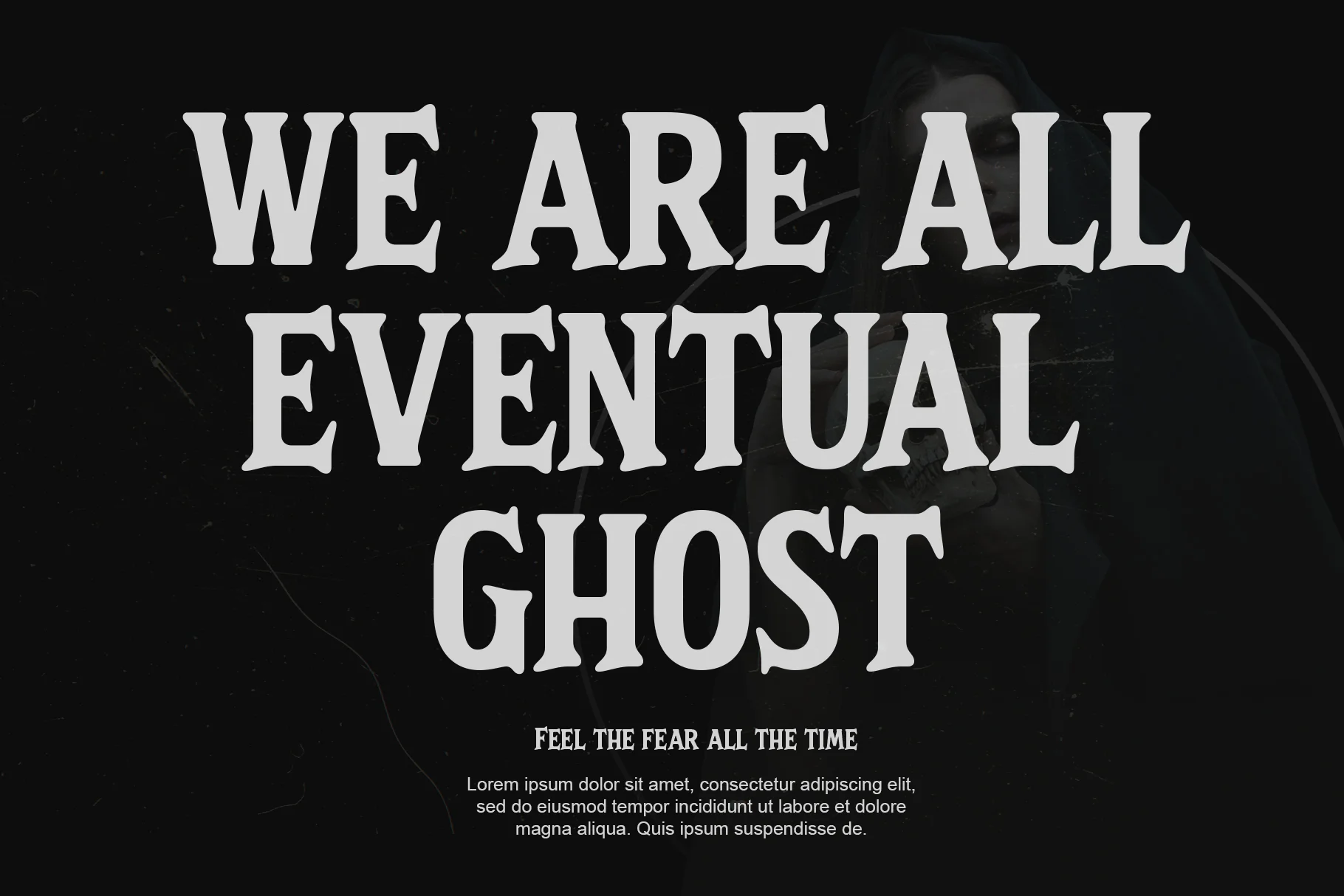
Nightmare Scream
Nightmare Scream is a horror, scary, and halloween font, perfect for your halloween party poster or some scary design! Also suitable for movie, documenter, film, logo, poster, game, book cover, headlines, title and many more projects. Add this font to your creative ideas and notice how it will make them stand out